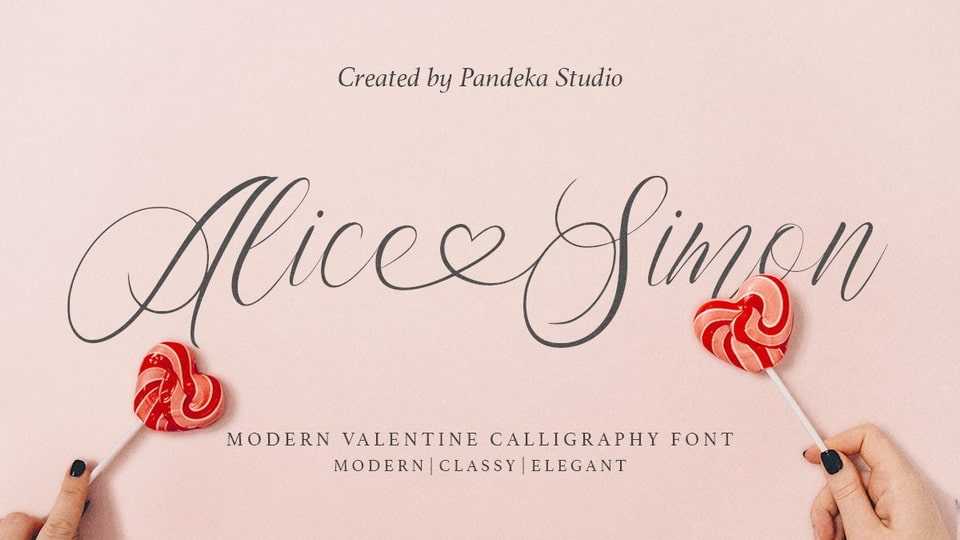
Download Alice Simon font, a modern calligraphy script perfect for wedding invitations, calligraphy logos for branding, elegant websites, personalizing gifts.